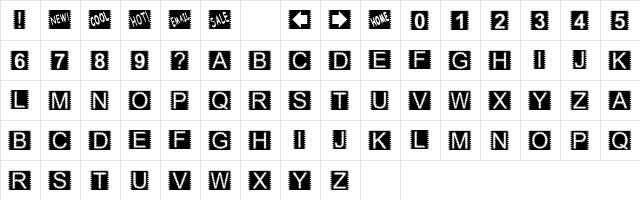
Zacken Normal
Design Context for Zacken Typeface
Zacken is a composed and adaptable typeface that performs quietly and consistently across a wide range of design contexts.
Pro Tip: Use Zacken in both headline and body roles to test its range before committing to a single application.